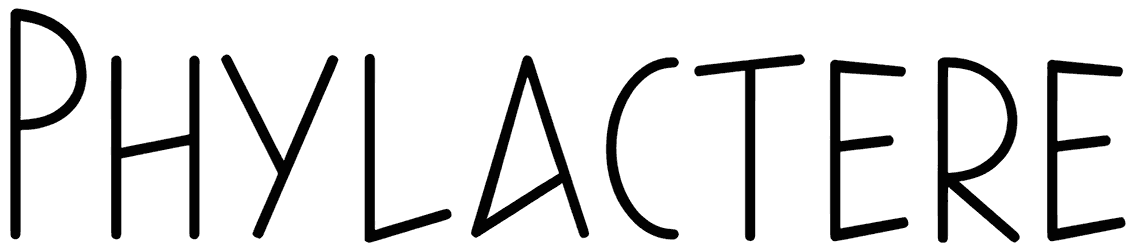
Phylactere Font
Having an all-caps handwritten font such as Phylactere would be a real necessity in the modern content market, so we strongly recommend you pick up this masterpiece for your posters, magazines, headlines, product labels, or logos.
This font offers two versions of uppercase letters and shares a sense of precision, delicacy, dynamism, or professionalism with the audience. Considering all its advantages, the lack of numbers will not be a serious problem.